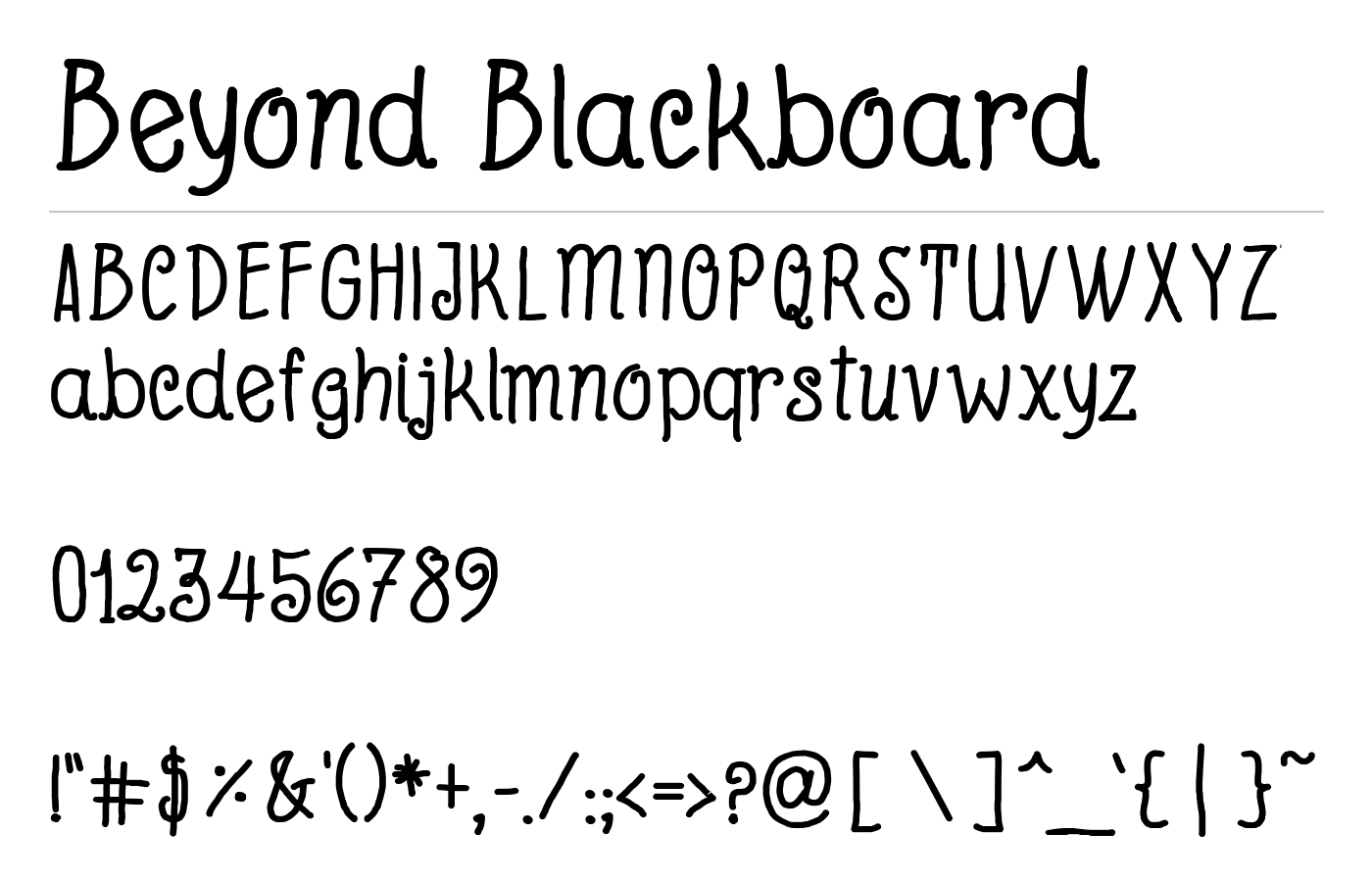
Beyond Blackboard is a playful, hand-drawn sans serif font with a friendly and informal vibe. Its irregular stroke widths and quirky letter shapes give it a casual, approachable feel, making it perfect for creative projects, educational materials, and designs that want to convey warmth and personality. This font works well in headlines, posters, and packaging where a fun, personal touch is needed.
Beyond Blackboard Font
About Beyond Blackboard Font